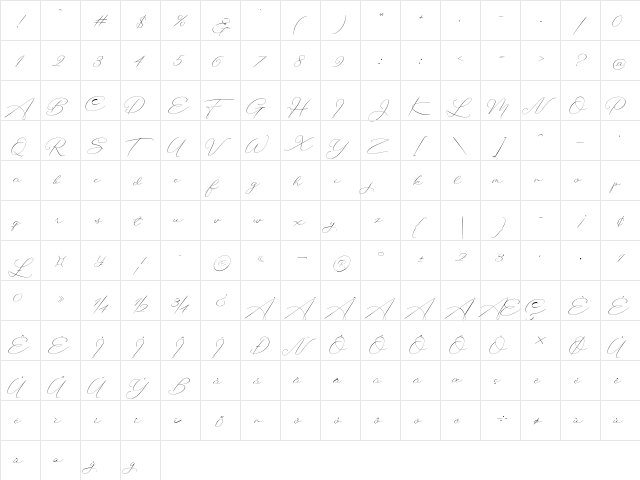
Botterill Signature Regular Font Preview
Botterill Signature Regular
Botterill Signature Regular Font Details
| Foundry | Aqeela Studio |
| Designer | Muhammad Nasir |
Design Context for Botterill Signature Typeface
Botterill Signature is a composed and adaptable typeface that performs quietly and consistently across a wide range of design contexts.